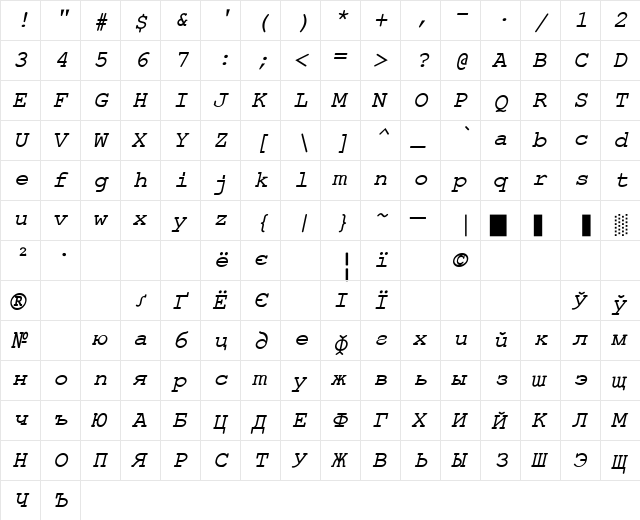
ER Kurier KOI-8 Italic
Design Context for ER Kurier KOI-8 Typeface
ER Kurier KOI-8 is a composed and adaptable typeface that performs quietly and consistently across a wide range of design contexts. The slanted form adds forward momentum and visual energy.